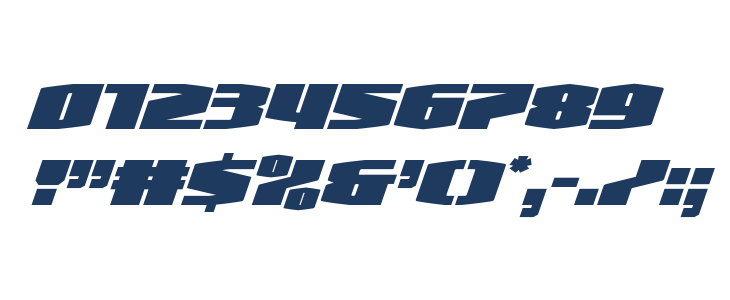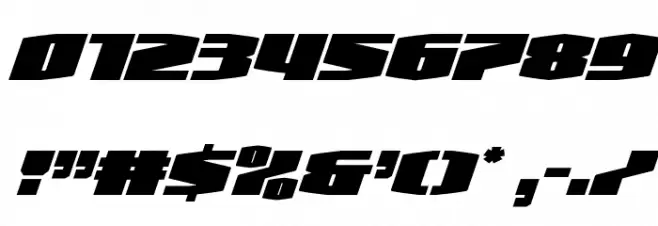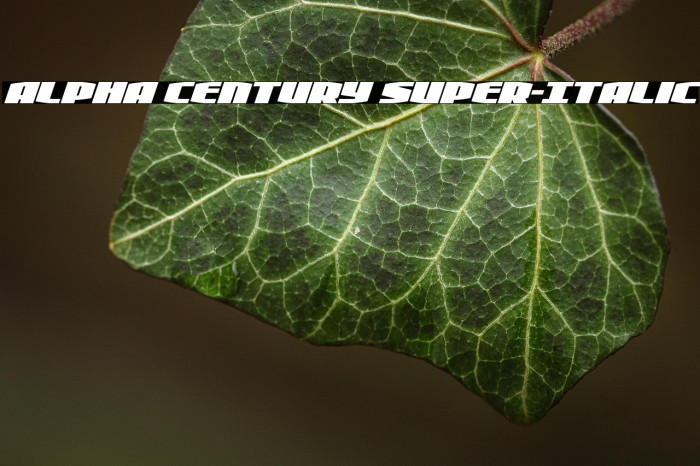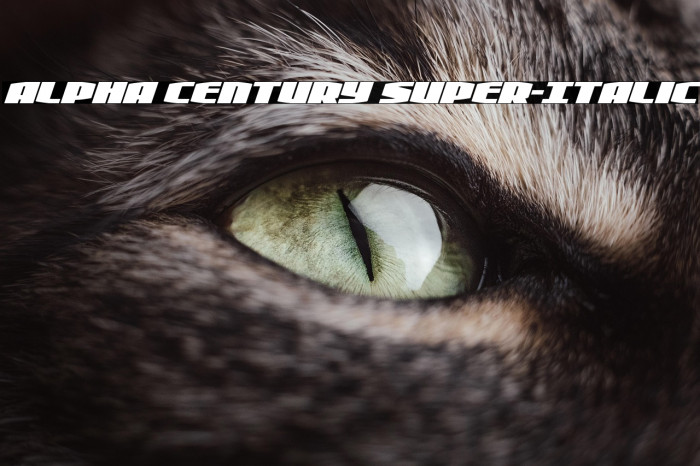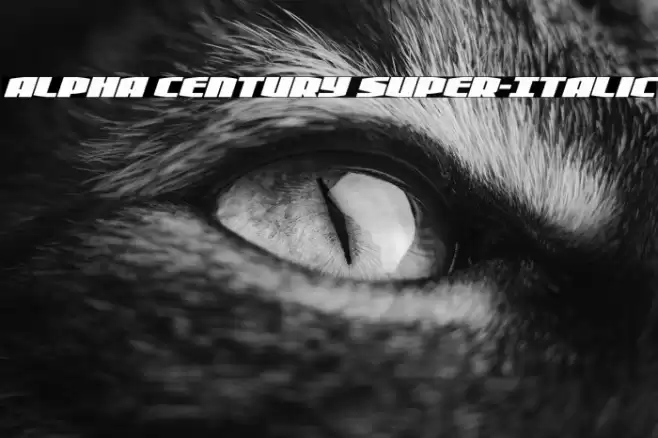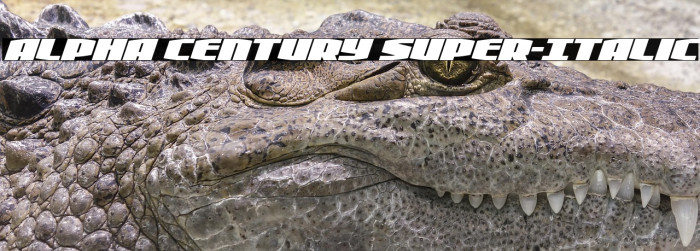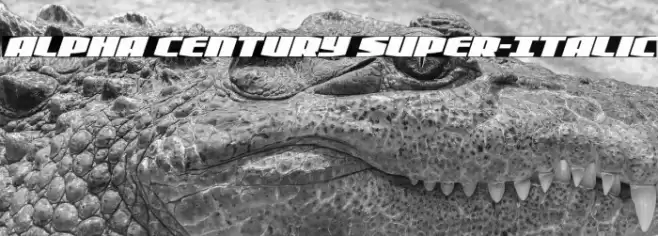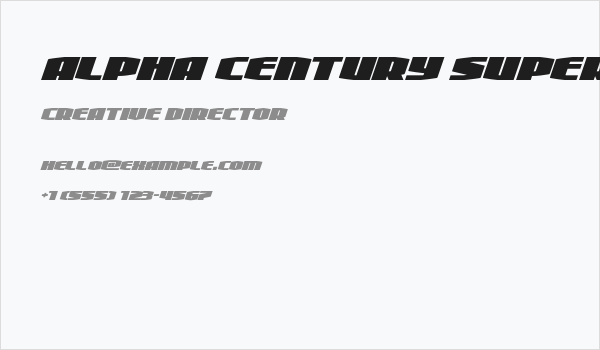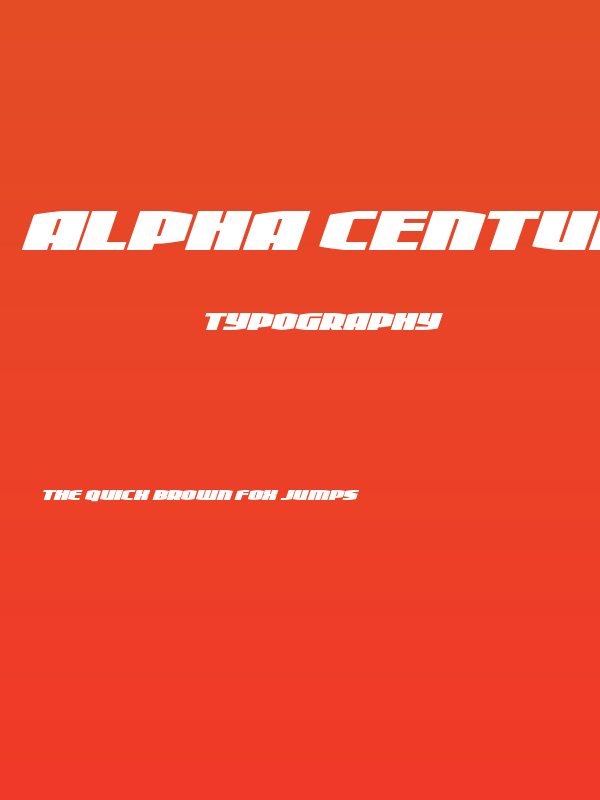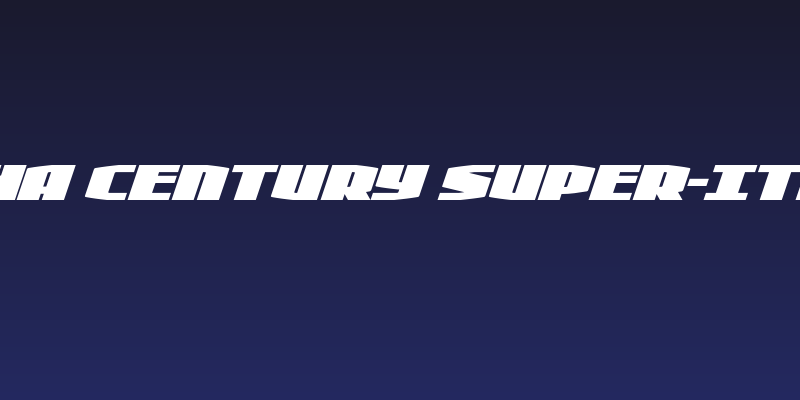
Alpha Century Super-Italic Font
Alpha Century Super-Italic Description
This font exhibits a bold and dynamic style with a futuristic flair. The characters are sharply angled, giving them a sense of motion and speed. The italicized nature of the font enhances its energetic appearance, making it ideal for projects that require a modern and edgy look. The uppercase and lowercase letters maintain a consistent width, while the numbers and special characters are designed to complement the overall aesthetic. The font's strong geometric shapes and high contrast between thick and thin strokes make it stand out, ensuring readability and impact.
| Proposed Projects | Ideal for sci-fi themed designs, video game titles, tech branding, and dynamic posters. |